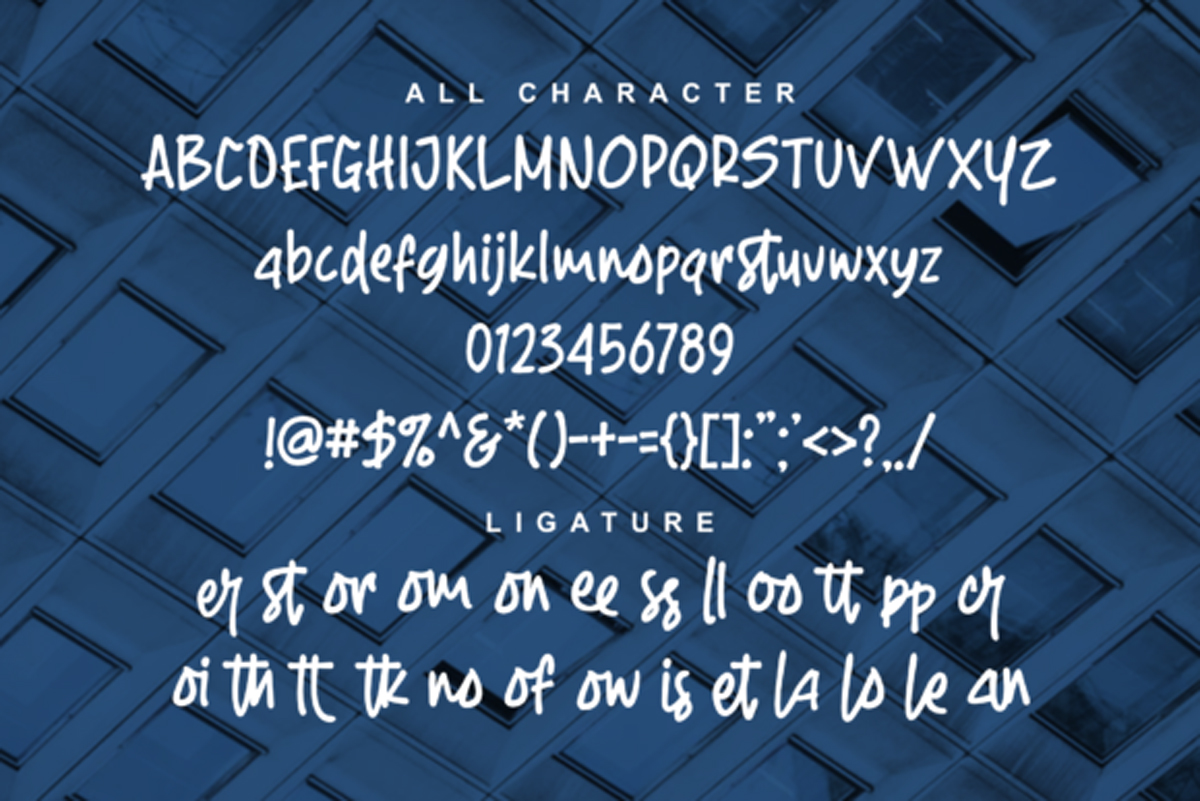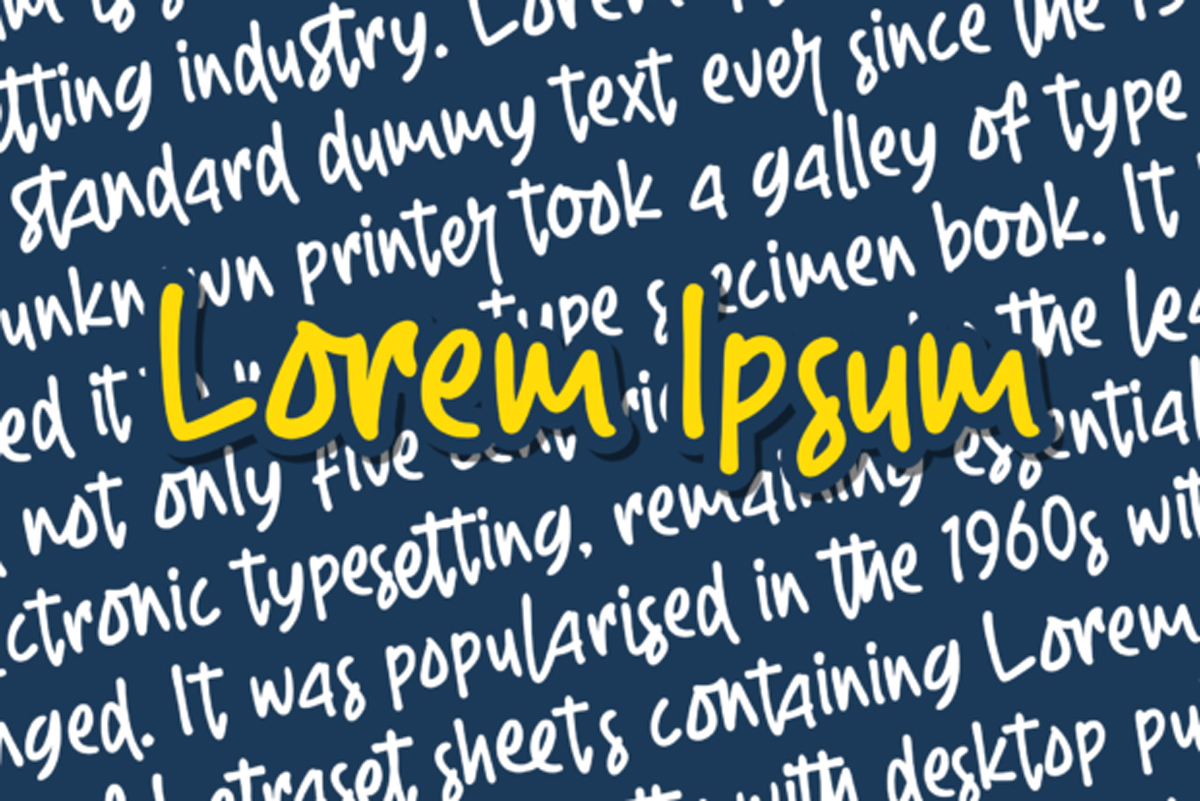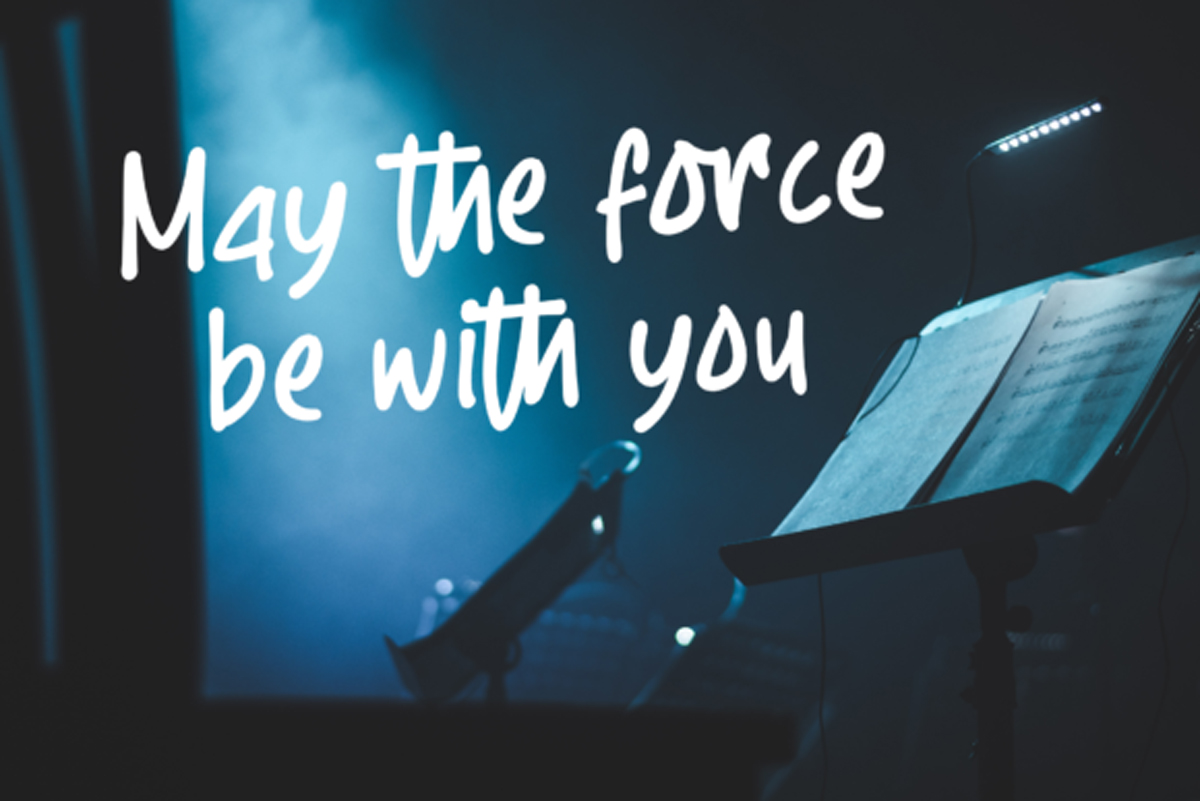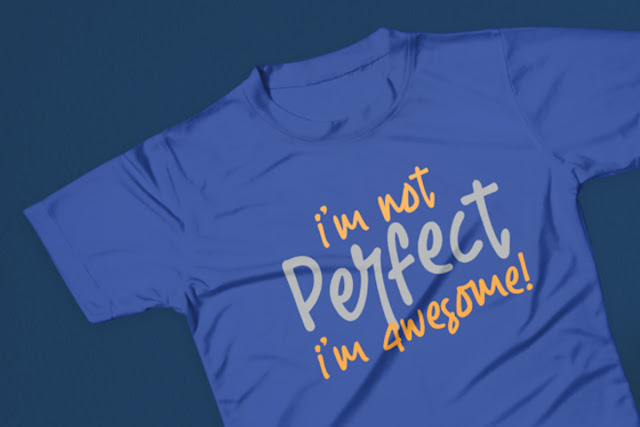
Rofland Font
Free Download Rofland Font with high speed direct link. Rofland is a cute and quirky display font. It will add an incredibly joyful touch to your designs. Add this beautiful display font to each of your creative ideas and notice how it makes them stand out!